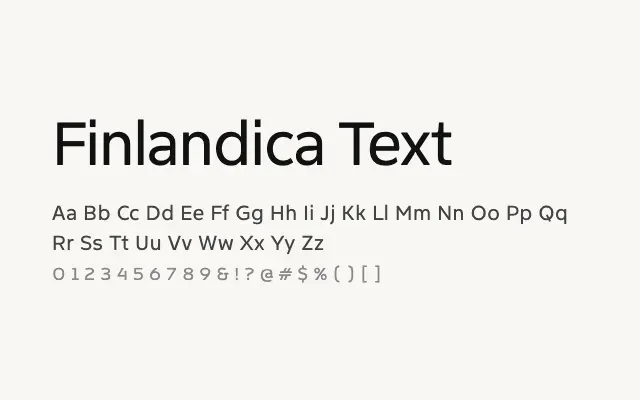
Finlandica Text
A reliable text-optimised humanist sans with comprehensive Cyrillic support for serious reading environments.
Finlandica Text is designed with legibility at small sizes as its primary concern, featuring open counters and neutral letterforms that sustain reading over long passages. Paired with its headline sibling, it provides a cohesive typographic system for multilingual editorial and digital projects. The nine-weight range makes it one of the more fully featured text sans options on Google Fonts.
Finlandica Text is optimised for body copy and extended reading, with generous x-height, open apertures, and spacing tuned for smaller sizes. Its Cyrillic support distinguishes it from many text sans-serifs in this segment.